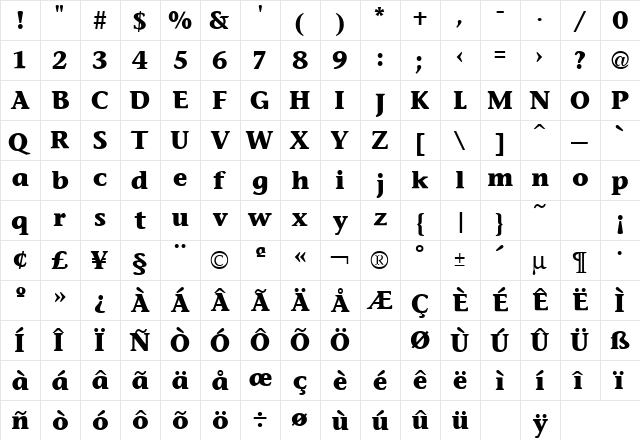
Stone Informal Bold Font Preview
Stone Informal Bold
Design Context for Stone Informal Typeface
Stone Informal offers clean, dependable letterforms without strong stylistic allegiance, making it a practical choice for designers who need flexibility. The heavy weight commands attention and anchors typographic hierarchies.